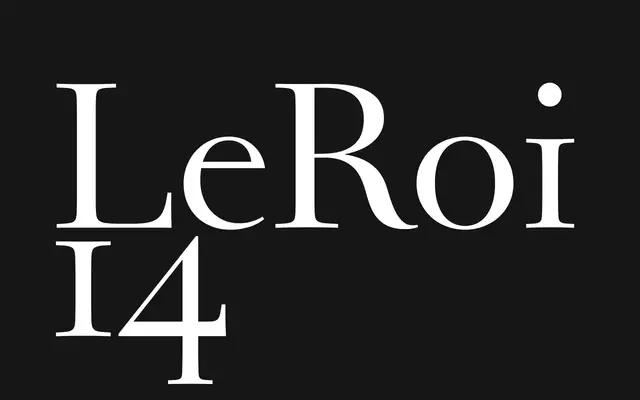
Le Grand
Newglyph · Ian Party
A sculptural, high-contrast headline serif by Ian Party, conceived as the display companion to his decades-long reimagining of the Romain du Roi.
Where its text sibling Romain du Roi is built for rhythm and readability, Le Grand is theatrical by design, with pronounced stroke contrast and distinctive double serifs on lowercase letters such as 'b', 'd', 'h' and 'l'. The family offers 18 styles alongside variable axes for weight, width and contrast, drawing formal inspiration from crescent shapes and the regal finial of the lowercase 'l'. Ian Party's engagement with the Romain du Roi spans his training at ECAL and The Hague through to the SangBleu and SangBleu Empire families, making this release the fullest expression of that research to date.
Le Grand is a high-contrast display companion to a Romain du Roi interpretation, placing it firmly in the rationalist serif tradition characterised by geometric construction, strong stroke contrast and bracketed serifs with double-serif details on lowercase letters.